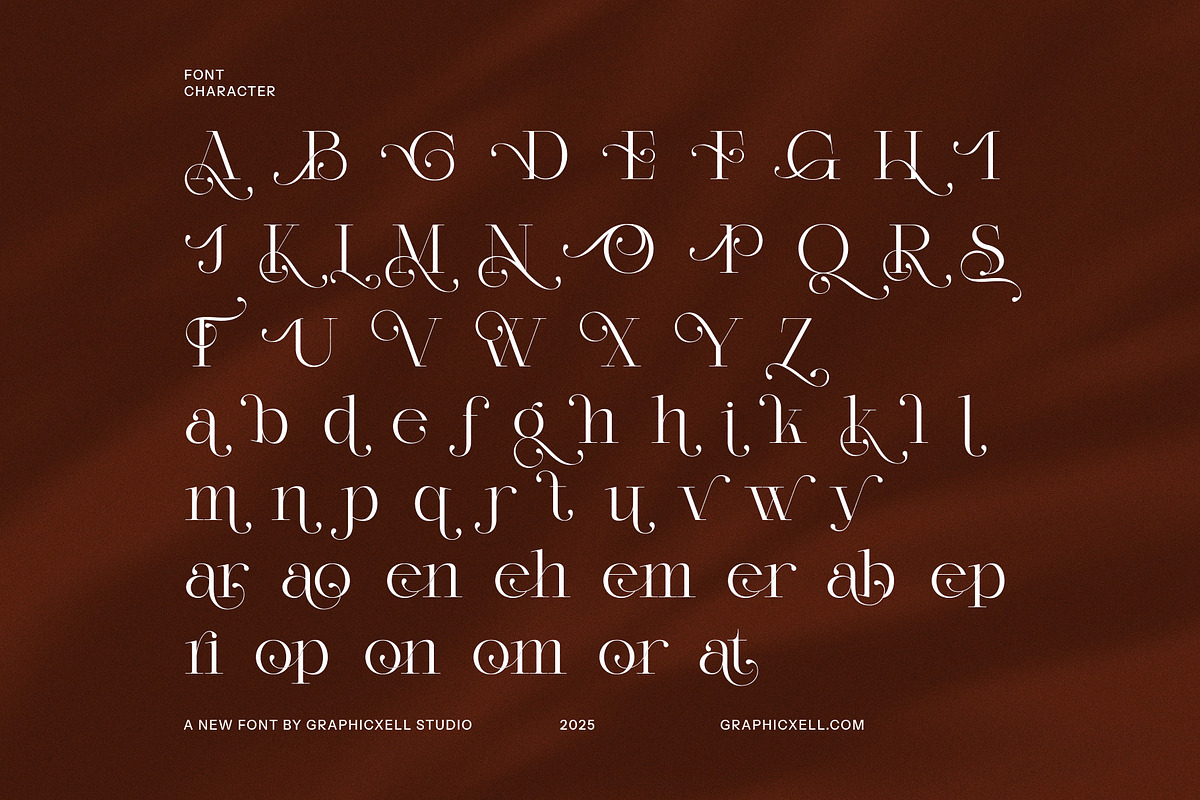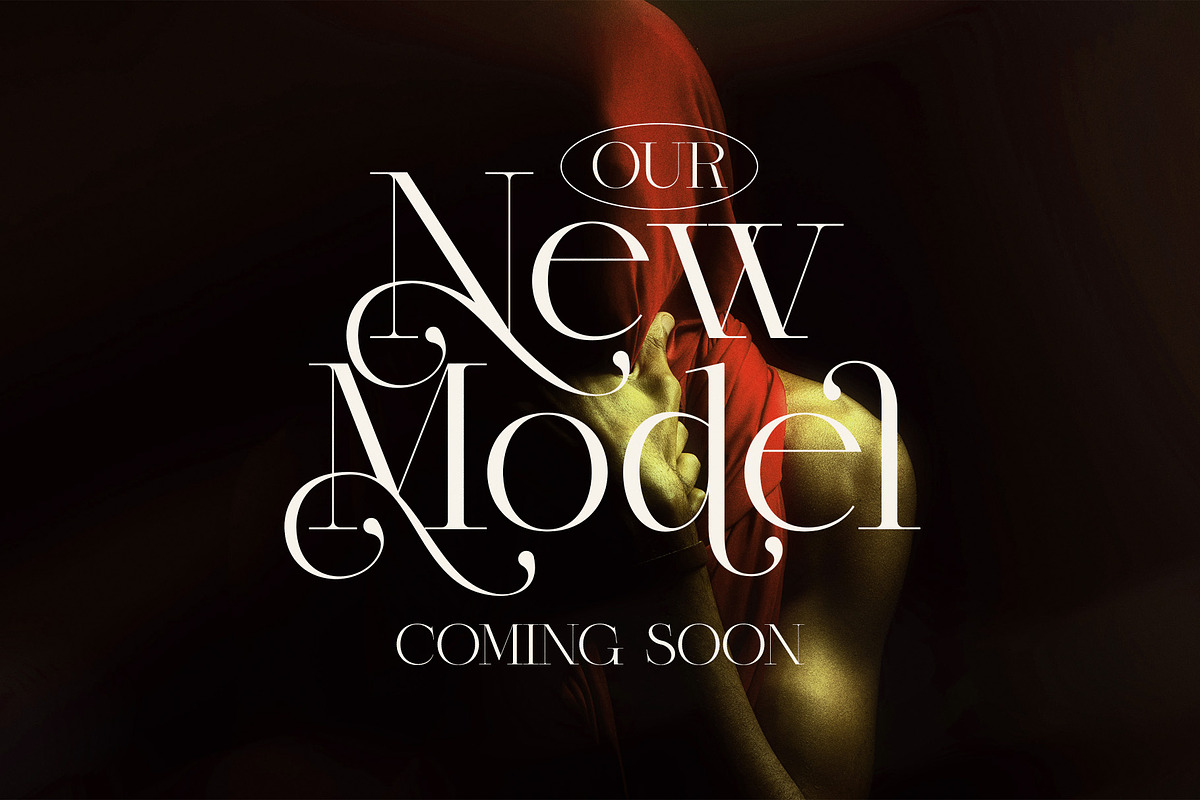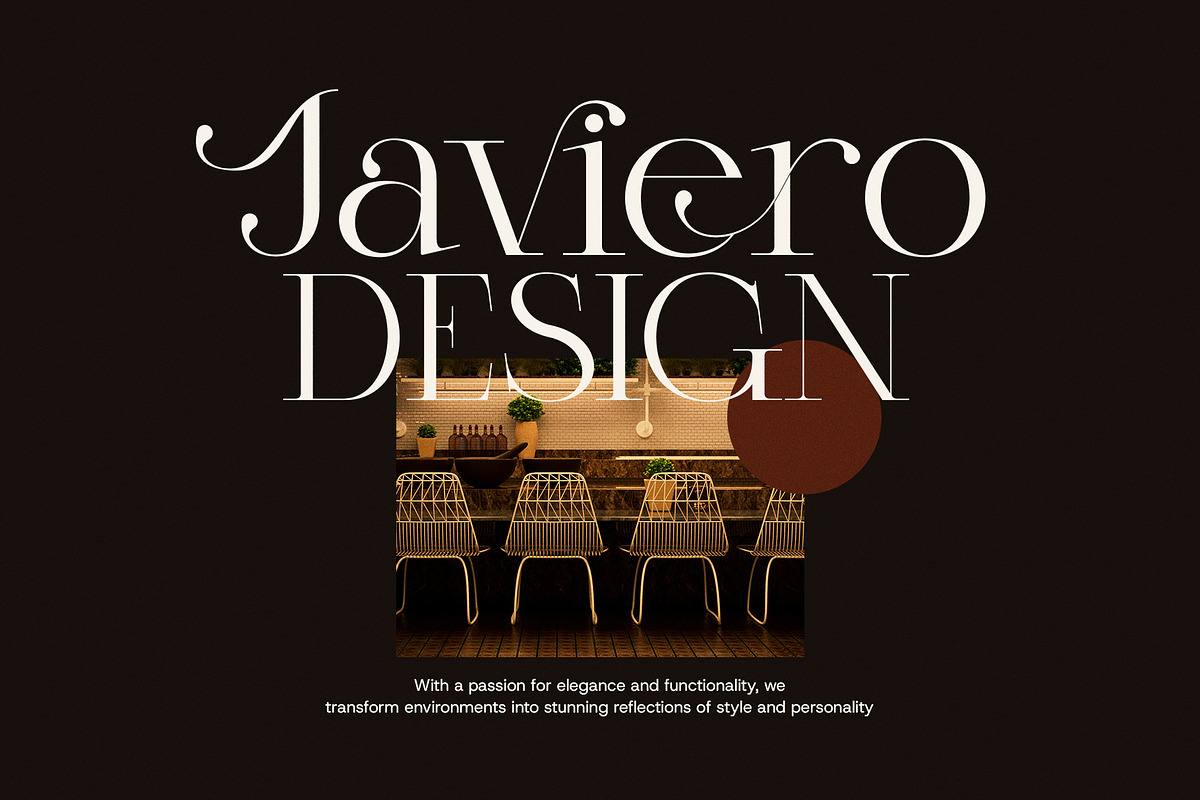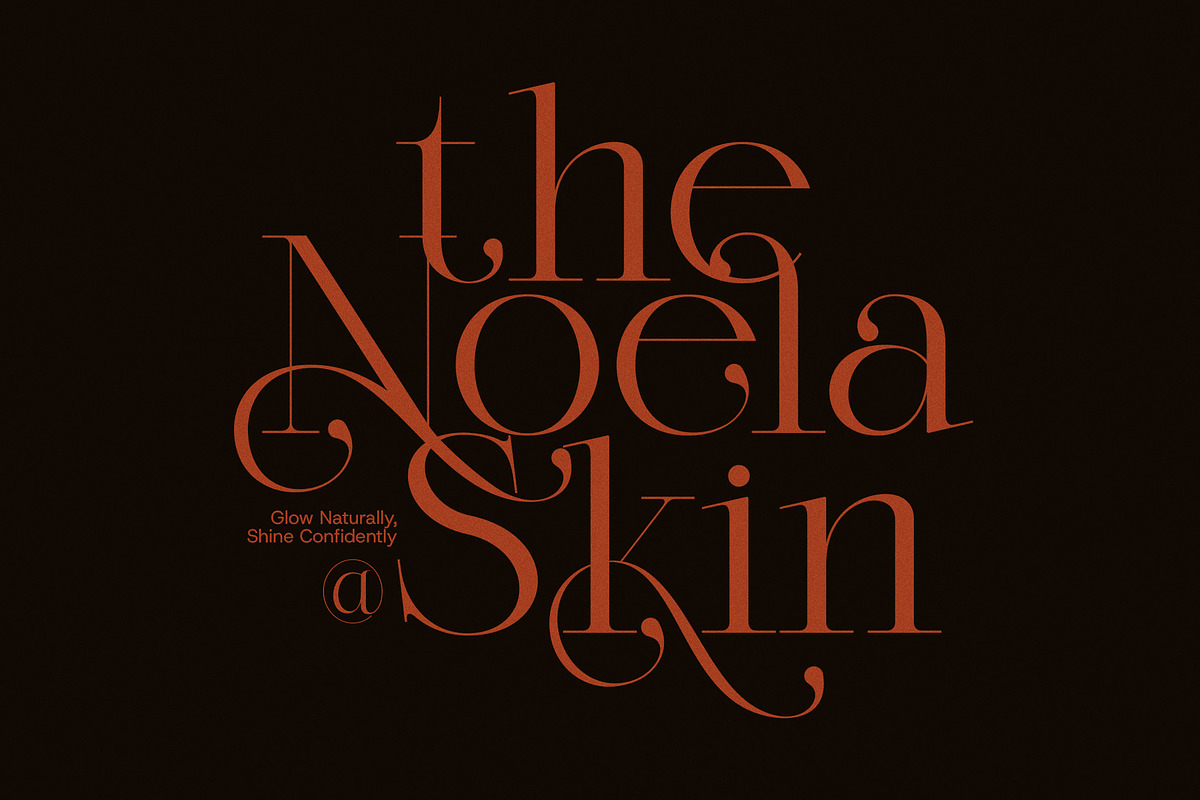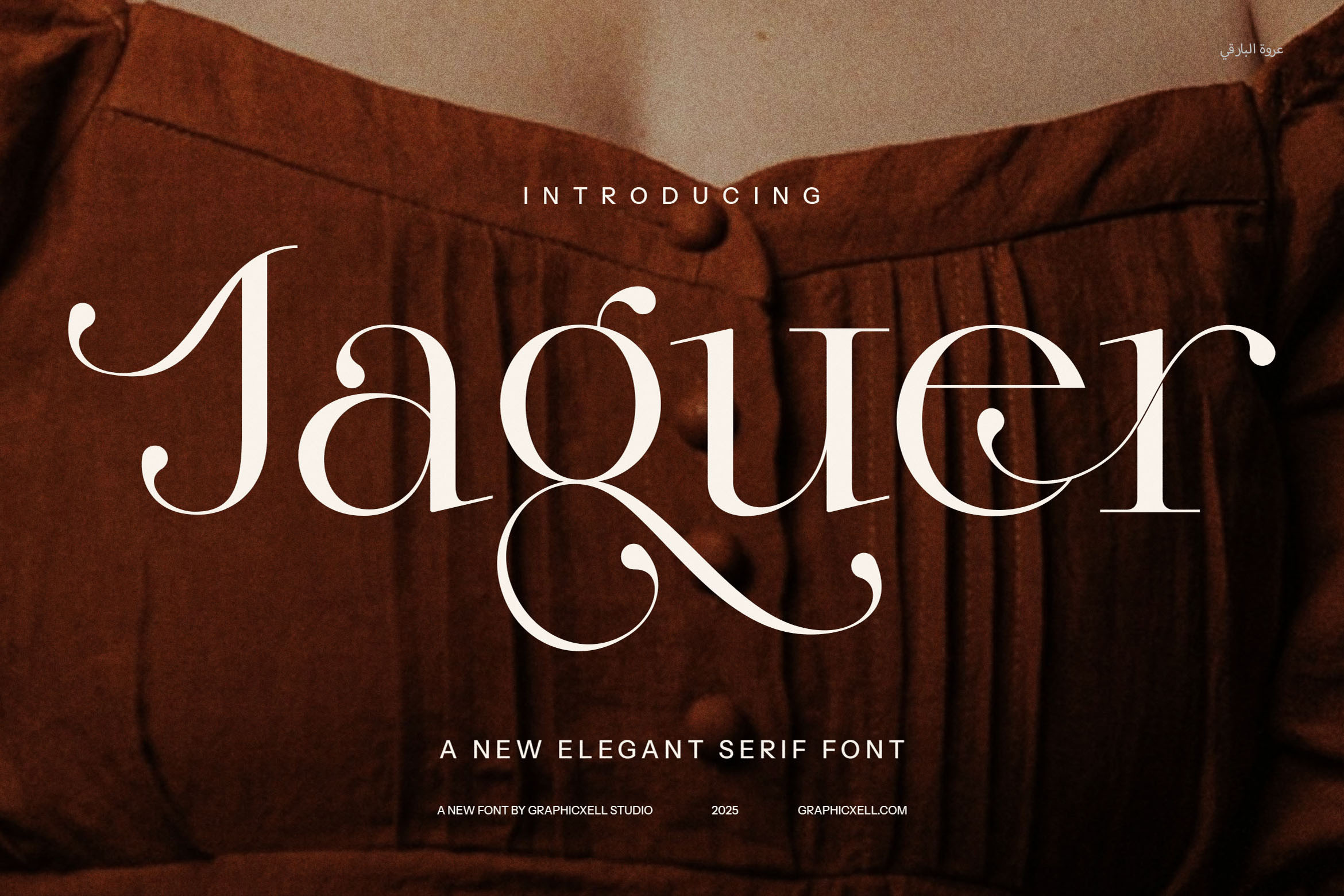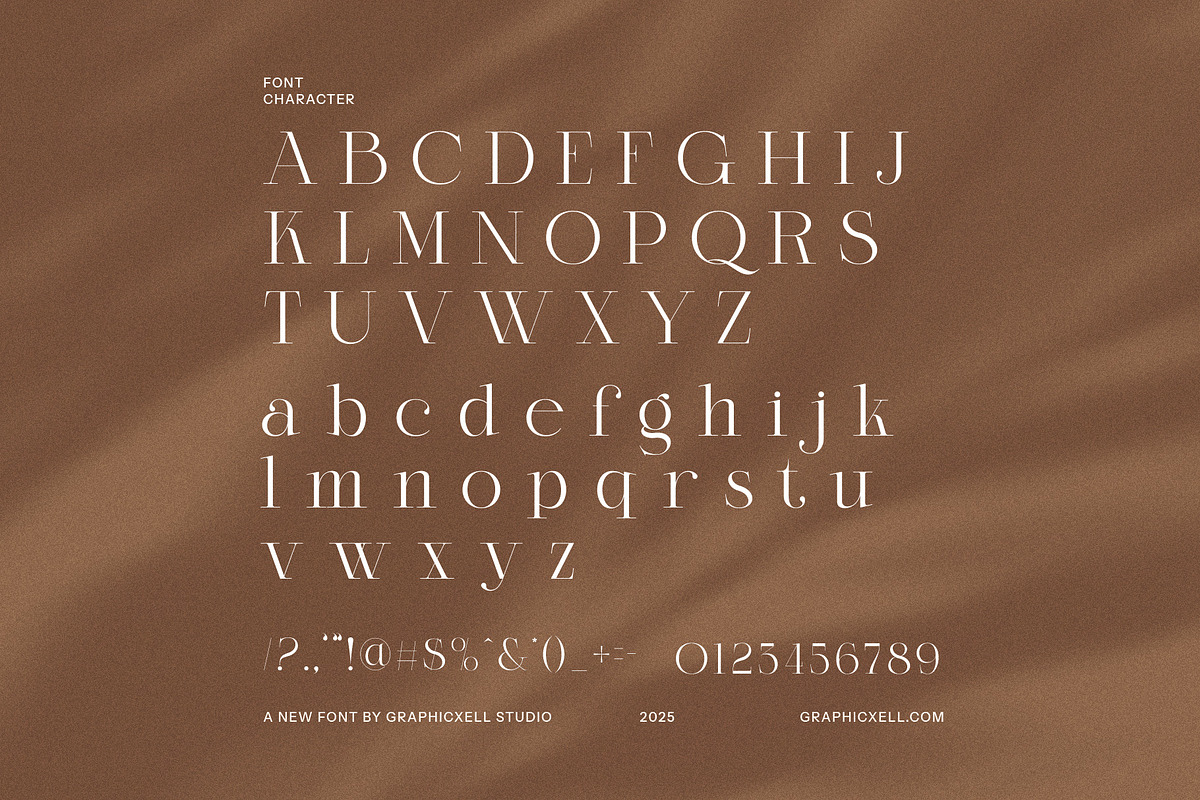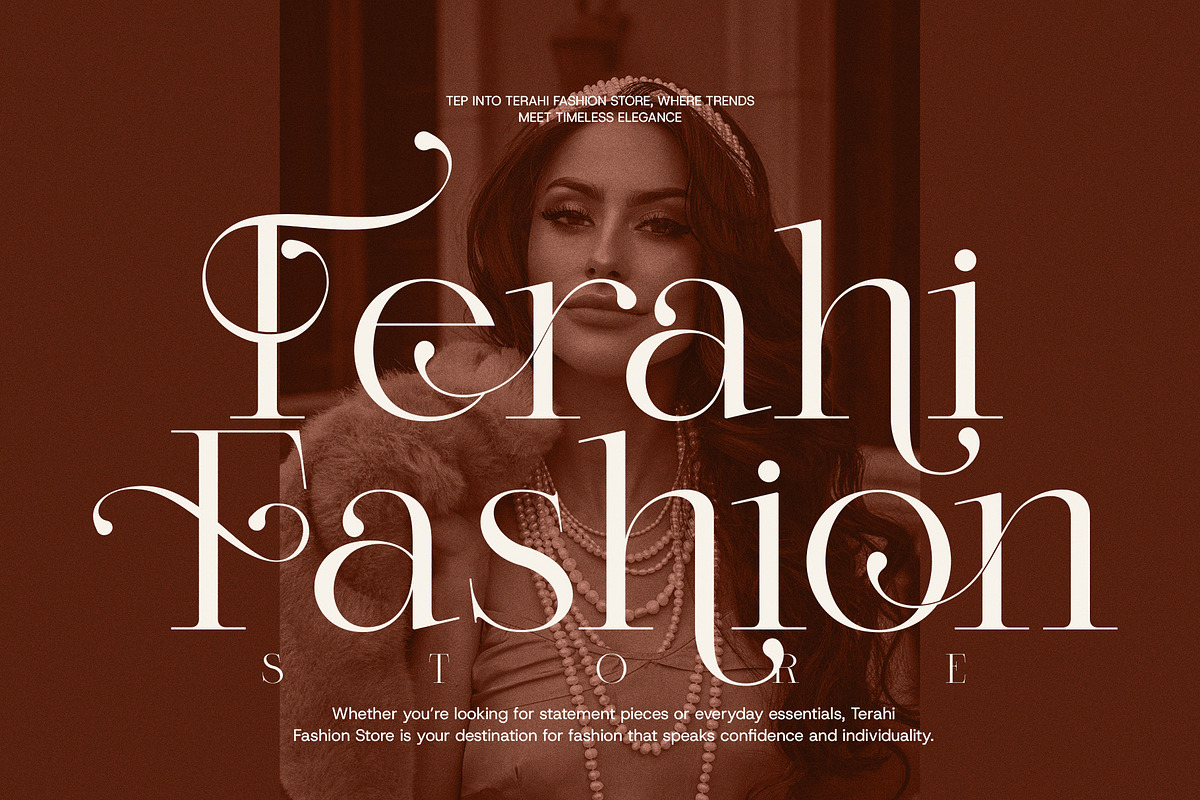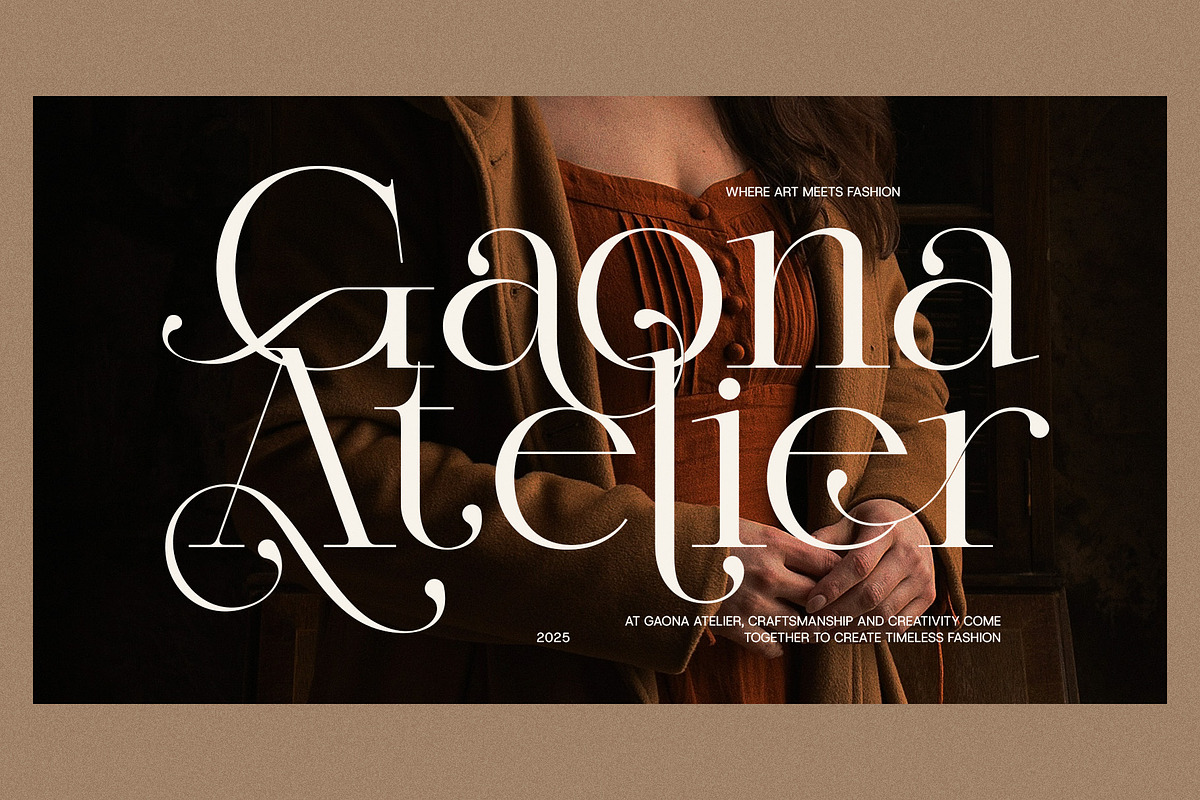
Jaguer Stylish Serif Font
Jaguer Stylish Serif Font is a contemporary and refined typeface that exudes elegance and sophistication. With its modern yet timeless appeal, this font is designed to make a lasting impression across a variety of creative projects. Featuring beautifully crafted serifs and a selection of unique ligatures and alternate characters, Jaguer brings an added level of artistry to your designs, ensuring each piece of text stands out with style and flair.
Ideal for branding, logo design, and high-end advertising, Jaguer Stylish Serif is the perfect choice for projects that demand sophistication and attention to detail. Its versatility shines in applications such as websites, magazines, product packaging, and layouts, where a balance of readability and aesthetic appeal is essential. Whether you're creating luxury branding, boutique designs, or promotional material, this font elevates your work with its graceful and professional design.
Jaguer’s alternate forms and ligatures add an extra dimension to its visual presence, offering customization options that allow you to create truly unique and dynamic compositions. This font is especially suited for the fashion, food, and lifestyle industries, where chic and stylish designs are essential for capturing the attention of your audience.
Bring a touch of refinement to your creative projects with Jaguer Stylish Serif Font. Its clean lines, distinctive character, and versatile application make it an exceptional choice for anyone looking to create a sophisticated and visually compelling brand identity. Let Jaguer transform your designs into works of art.